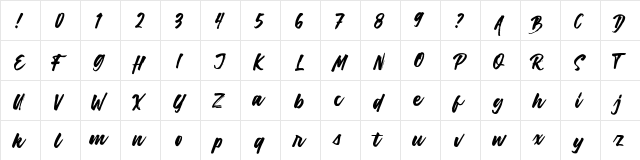
Harligh Brush Harligh Brush
| Foundry | Farul Arjianto |
| Designer | Farul Arjianto |
Design Context for Harligh Brush Typeface
Harligh Brush flows with the natural rhythm of handwritten lettering, making it ideal for designs that call for warmth and personal expression.
Font Pairing: Combine Harligh Brush with a simple geometric sans for maximum contrast — the tension between flowing curves and clean structure is a classic typographic pairing.
Pro Tip: Pair Harligh Brush with a clean sans-serif for supporting text. The contrast between fluid script and geometric structure creates an elegant typographic hierarchy.